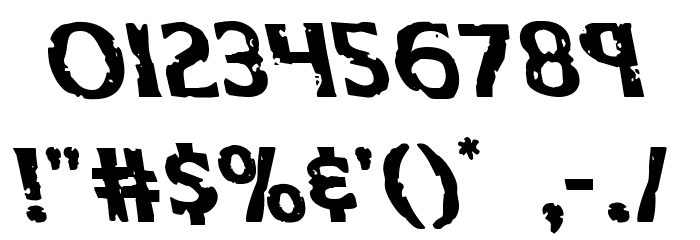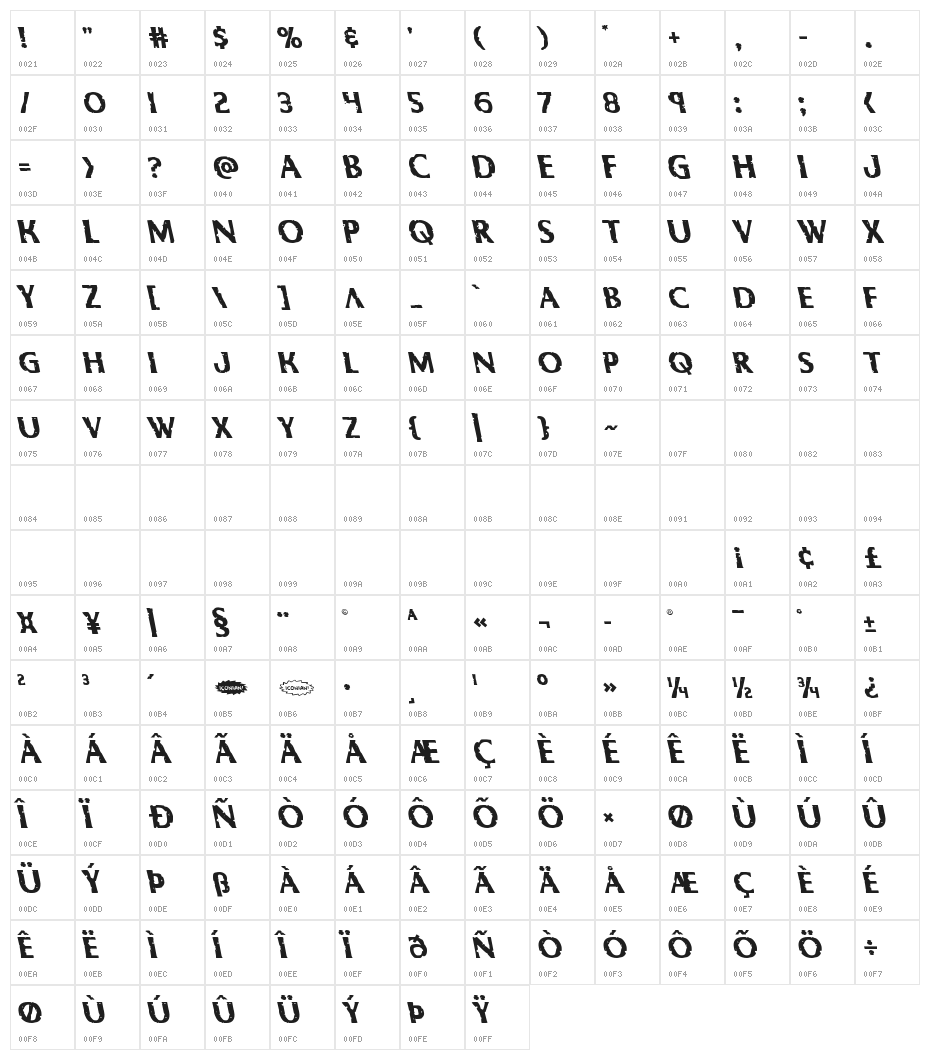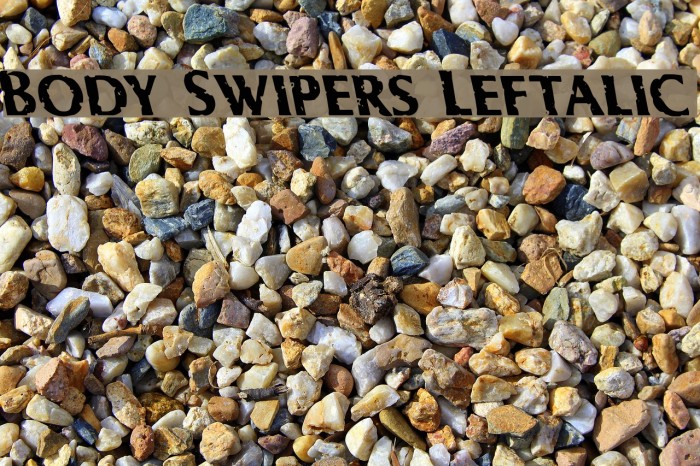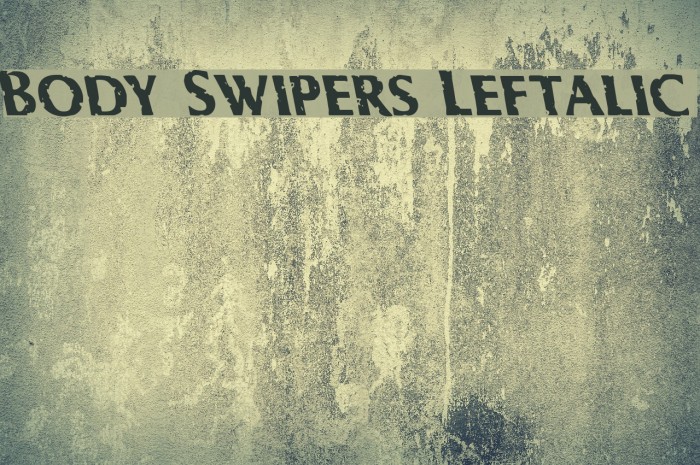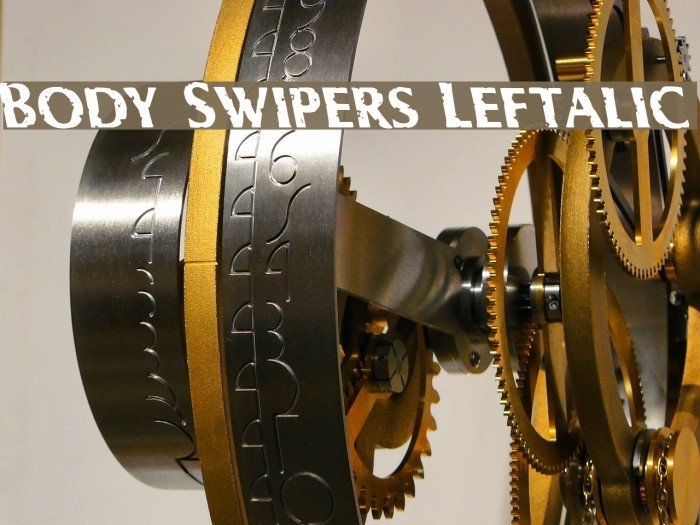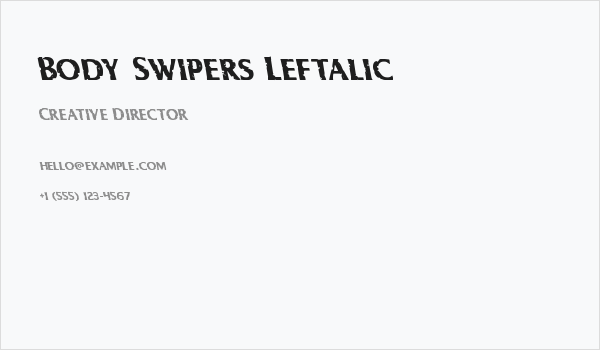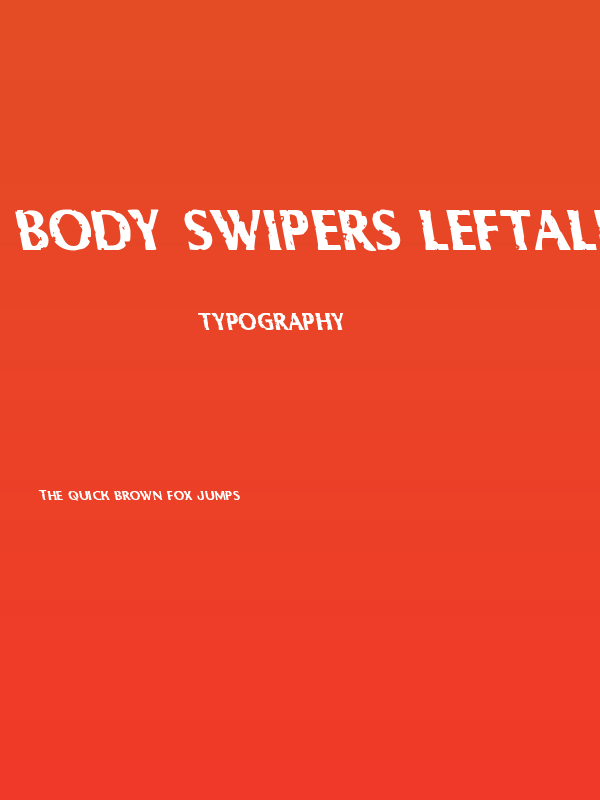
Body Swipers Leftalic Font
Body Swipers Leftalic Description
This font features a rugged, distressed style with a bold presence. The characters are heavily textured, giving them a worn, grunge appearance. Each letter has an uneven, rough edge, creating a sense of movement and energy. The uppercase and lowercase letters maintain a consistent style, with numerals and special characters following suit. This font's unique design makes it stand out, perfect for projects that require a bold, eye-catching typeface. The overall look is both dynamic and edgy, ideal for creative and unconventional designs.
BODY-SWIPERS-LEFTALIC UPPERCASE
BODY-SWIPERS-LEFTALIC LOWERCASE
BODY-SWIPERS-LEFTALIC OTHER CHARS